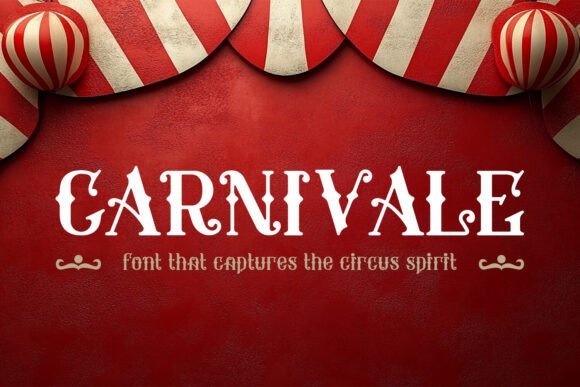
The Perfect Ticket to a Design Spectacle
Imagine strolling through a vintage carnival, surrounded by the vibrant colors and ornate details of classic posters and marquee lettering. As you gaze upon the intricate designs, you can almost hear the sound of laughter and excitement in the air. This is the magic that the Carnivale Font brings to any design project.
This bold and decorative font is inspired by the nostalgia of classic carnival posters and is perfect for capturing the whimsical charm of festivals, theater, and vintage aesthetics. Whether you’re designing event flyers, branding, packaging, invitations, or signage, the Carnivale Font is your ultimate showstopper. As a designer, you know the importance of adding that special touch to your projects, and the Carnivale Font delivers just that.
Carnivale Font Key Features
- Font Family: Carnivale Font is a unique, hand-drawn, and ornate font family that features a circus-inspired design.
- Size: The font family consists of 3 different font sizes: Regular, Bold, and Outline, allowing for a range of design options.
- Resolution: Optimized for high-resolution displays, Carnivale Font looks stunning at 300 DPI or higher, making it ideal for print and digital applications.
- Unique Characteristics: Features intricate details, elaborate flourishes, and ornate patterns, making it perfect for creating eye-catching and memorable designs.
- Language Support: Supports a wide range of languages, including Latin, Cyrillic, and Greek alphabets, allowing for global design applications.
Carnivale Font Review
As a designer, I was excited to dive into the Carnivale font and see what it has to offer. Here’s my honest review.
- Carnivale’s unique blend of elegance and playfulness makes it perfect for projects that need a touch of whimsy.
- The font’s extensive character set includes a wide range of languages, making it a great choice for global brands.
- The font’s multiple weights and styles provide ample flexibility for creating visually appealing typography.
- The font’s readability can be affected in smaller sizes, which may require additional design considerations.
- Certain characters may not be optimized for digital use, leading to potential display issues.
- The font’s playfulness can sometimes come across as too busy or overwhelming, requiring careful balance in design applications.
While Carnivale font has its limitations, its unique charm and flexibility make it a solid choice for designers looking to add some personality to their projects. With careful consideration of its potential drawbacks, Carnivale can be a valuable addition to any design toolkit.
The Carnivale Font is ideal for creative and artistic projects, such as:
– Travel brochures and posters
– Event invitations and flyers
– Branding and advertising materials
– Designing menus and restaurant signage
To get the most out of the Carnivale Font, consider the following tips:
– Use it in bold and italic styles to add emphasis and visual interest.
– Pair it with other creative fonts to create a unique and eye-catching design.
– Experiment with different font sizes and colors to create a dynamic and engaging layout.
Alternatives to Carnivale Font
Great Vibes Font is a modern, elegant script font that is perfect for adding a touch of sophistication to your designs. It is ideal for use in wedding invitations, luxury branding, and high-end marketing materials. Great Vibes Font has a more refined and polished look compared to Carnivale Font, which makes it suitable for formal events and upscale brands.
Creamer Font
Creamer Font is a beautiful, handwritten font that is great for creating a warm and inviting atmosphere in your designs. It is perfect for use in food and beverage branding, stationery, and packaging. Creamer Font has a more casual and friendly feel compared to Carnivale Font, making it suitable for brands that want to convey a sense of approachability and warmth.